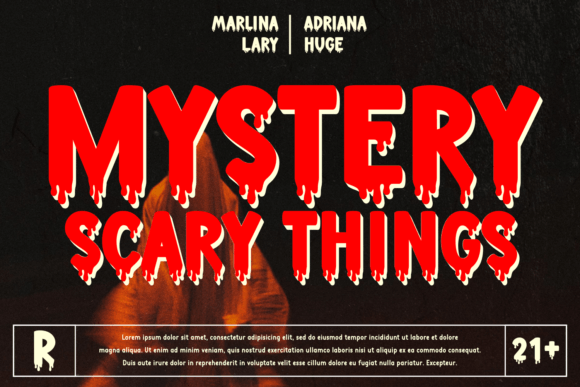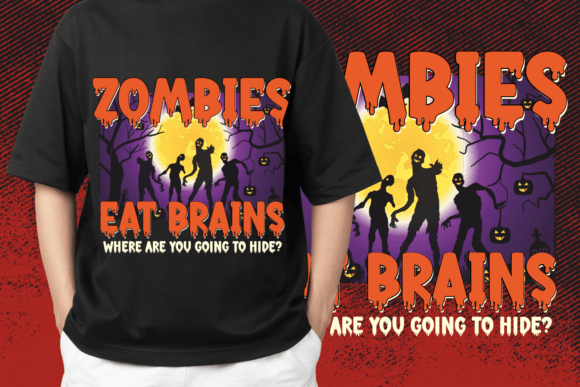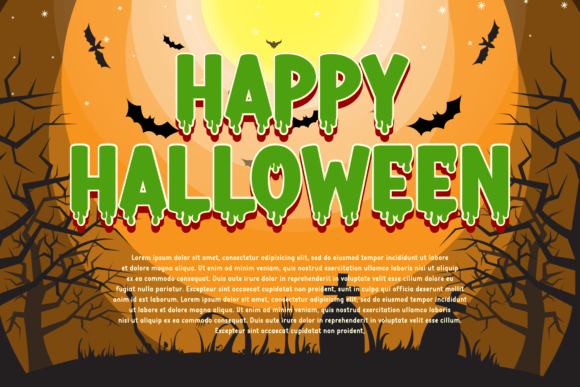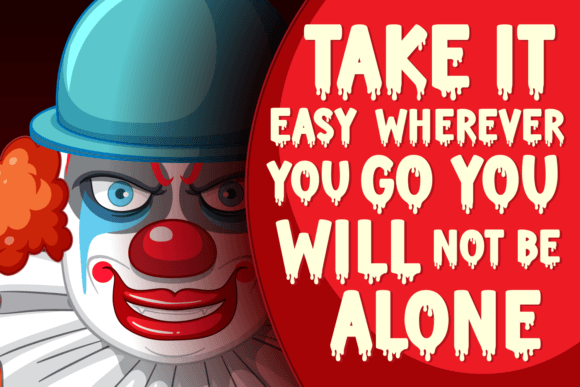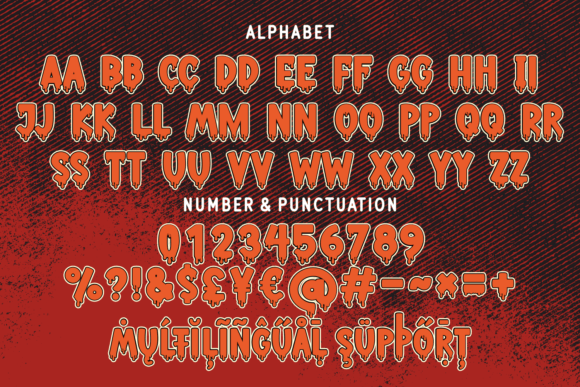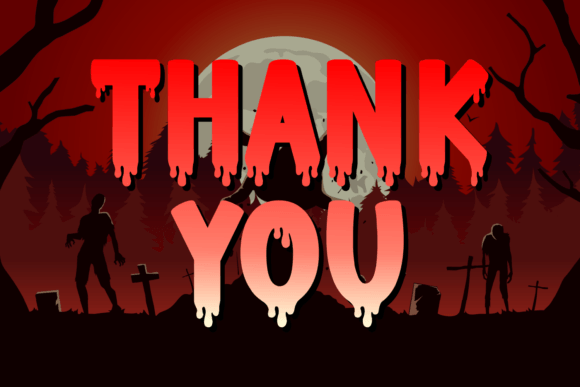
Bloody Midnight Font
About Bloody Midnight Font
Bloody Midnight is a scary, creepy display font. Spooky and mysterious, this font will come in handy when you want to create unique Halloween or horror-themed designs that will impress your audience.